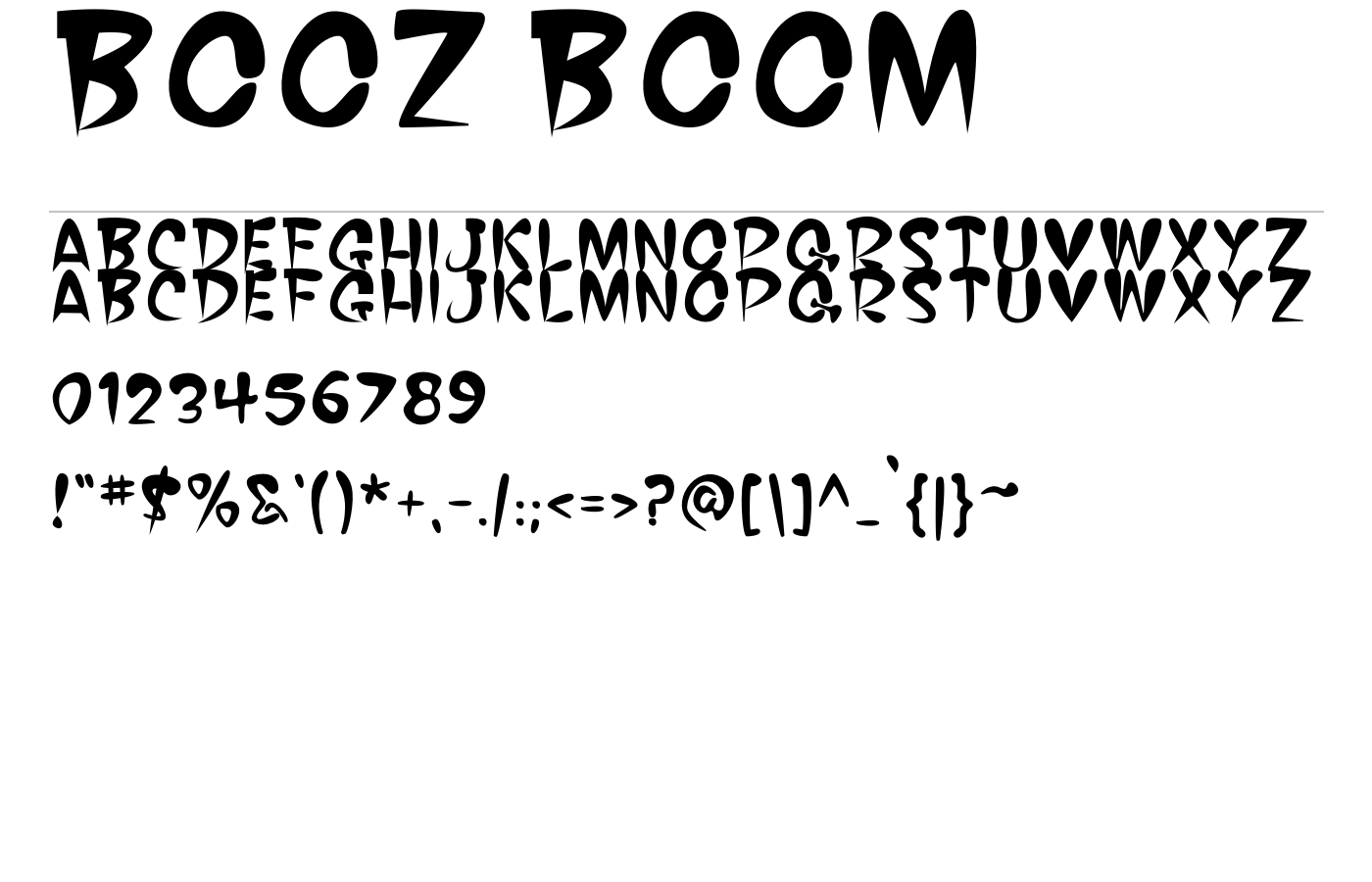
BOOZ BOOM is a bold, playful display font with sharp, exaggerated serifs that give it a dynamic and energetic feel. Its quirky letterforms and irregular shapes make it ideal for fun, eye-catching designs in headlines, posters, and branding where a lively, informal tone is desired. This font adds a unique, spirited personality perfect for creative projects looking to stand out with character and impact.
BOOZ BOOM Font
About BOOZ BOOM Font
| Font family | BOOZ BOOM Font |
| Designer | Doni Dorra |